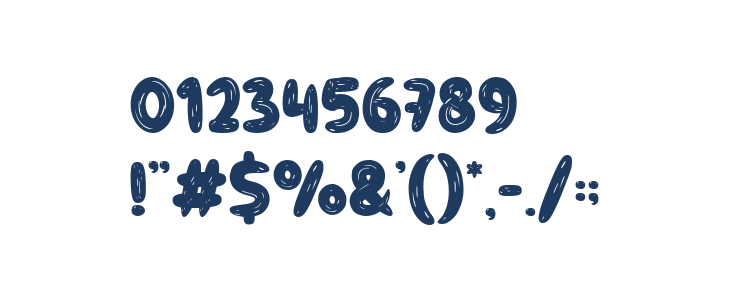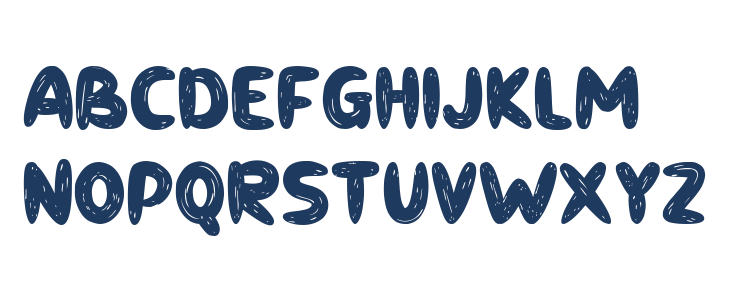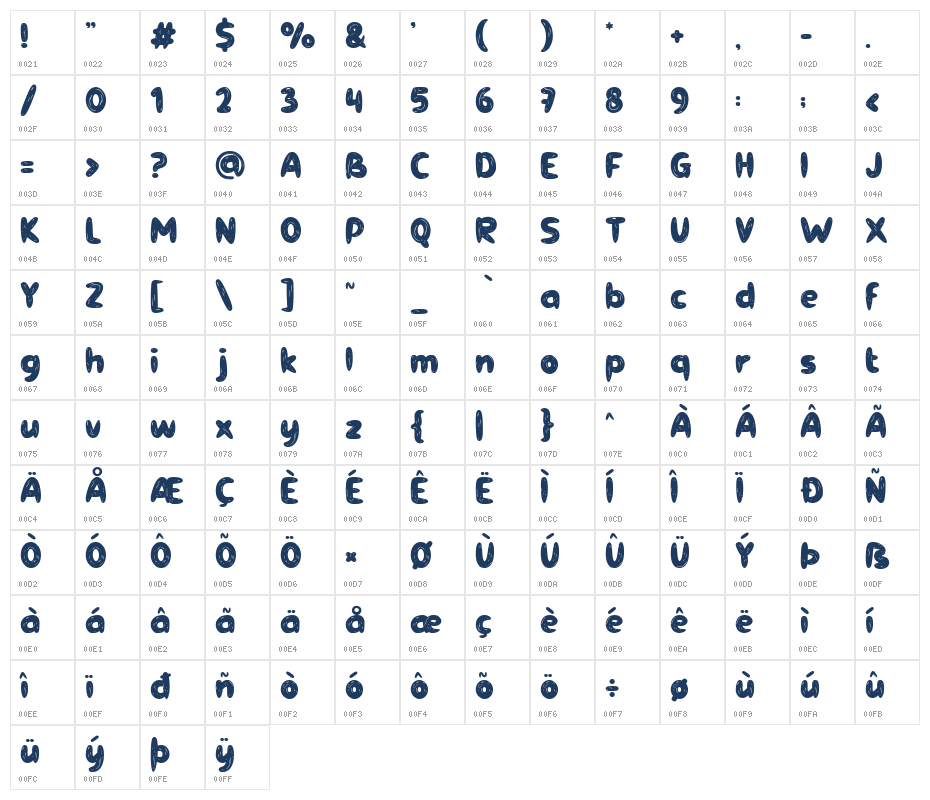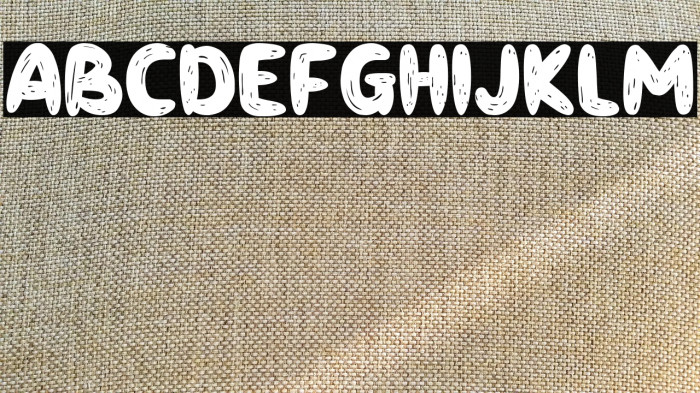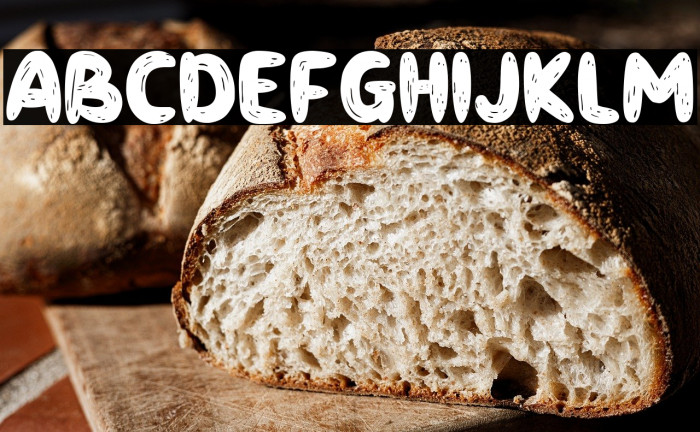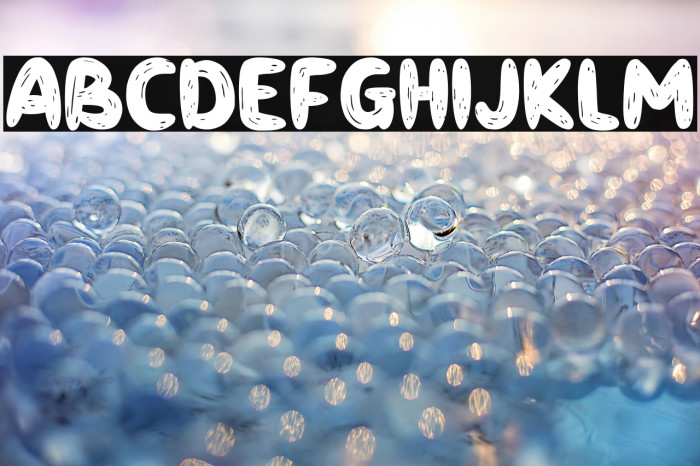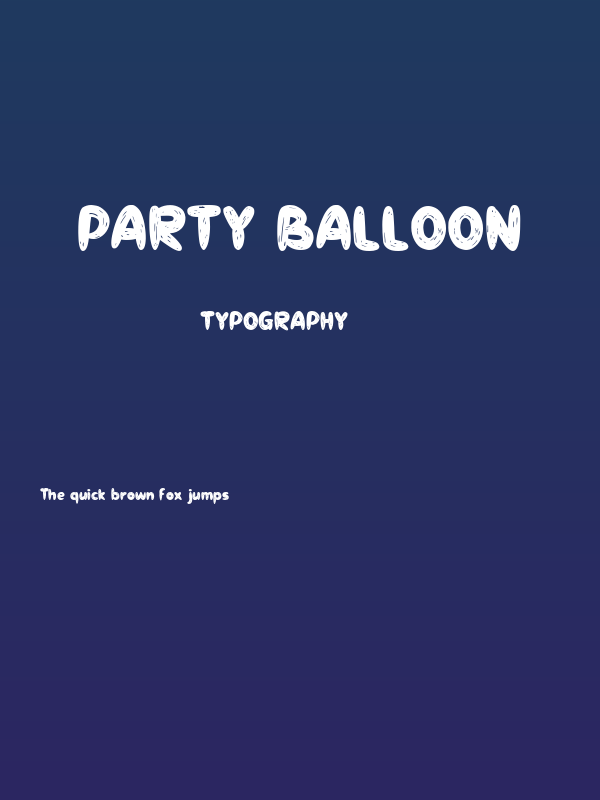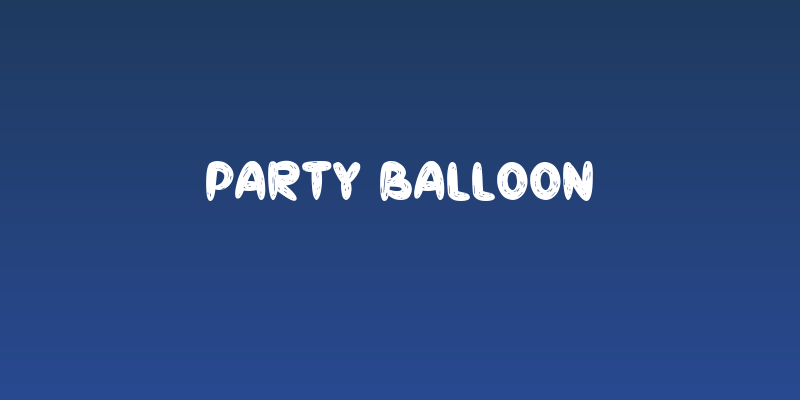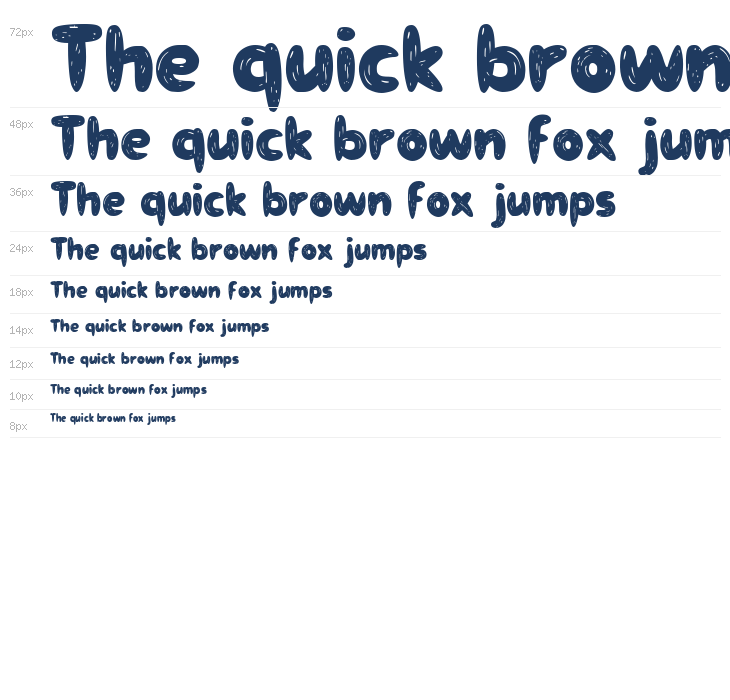
Party Balloon Font
Party Balloon Description
A playful, bold, handwritten style font with a textured, brushstroke appearance.
| Overall Style | Casual, Playful, Handcrafted |
| Use Case | Headlines, Posters, Logos, Social media graphics |